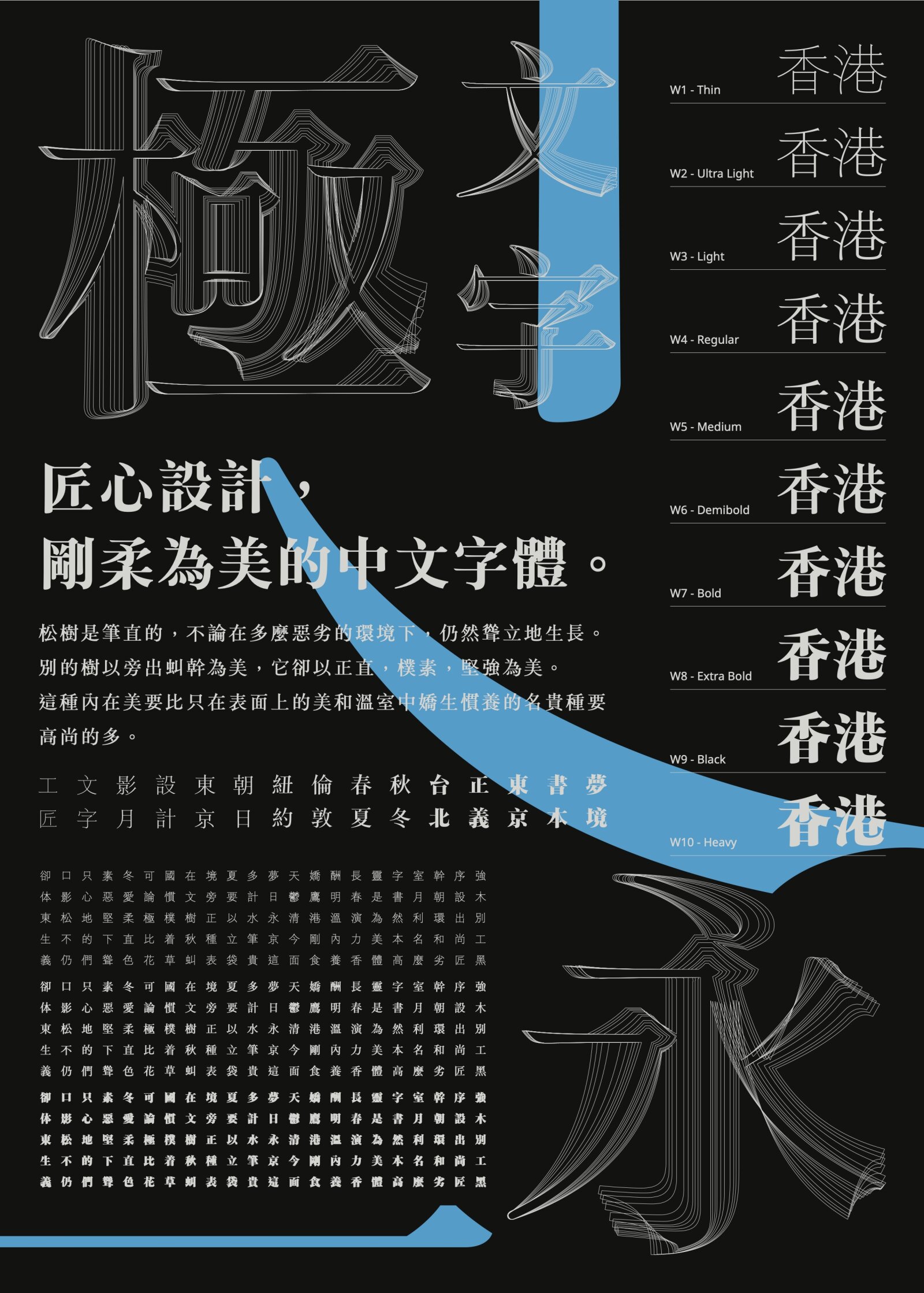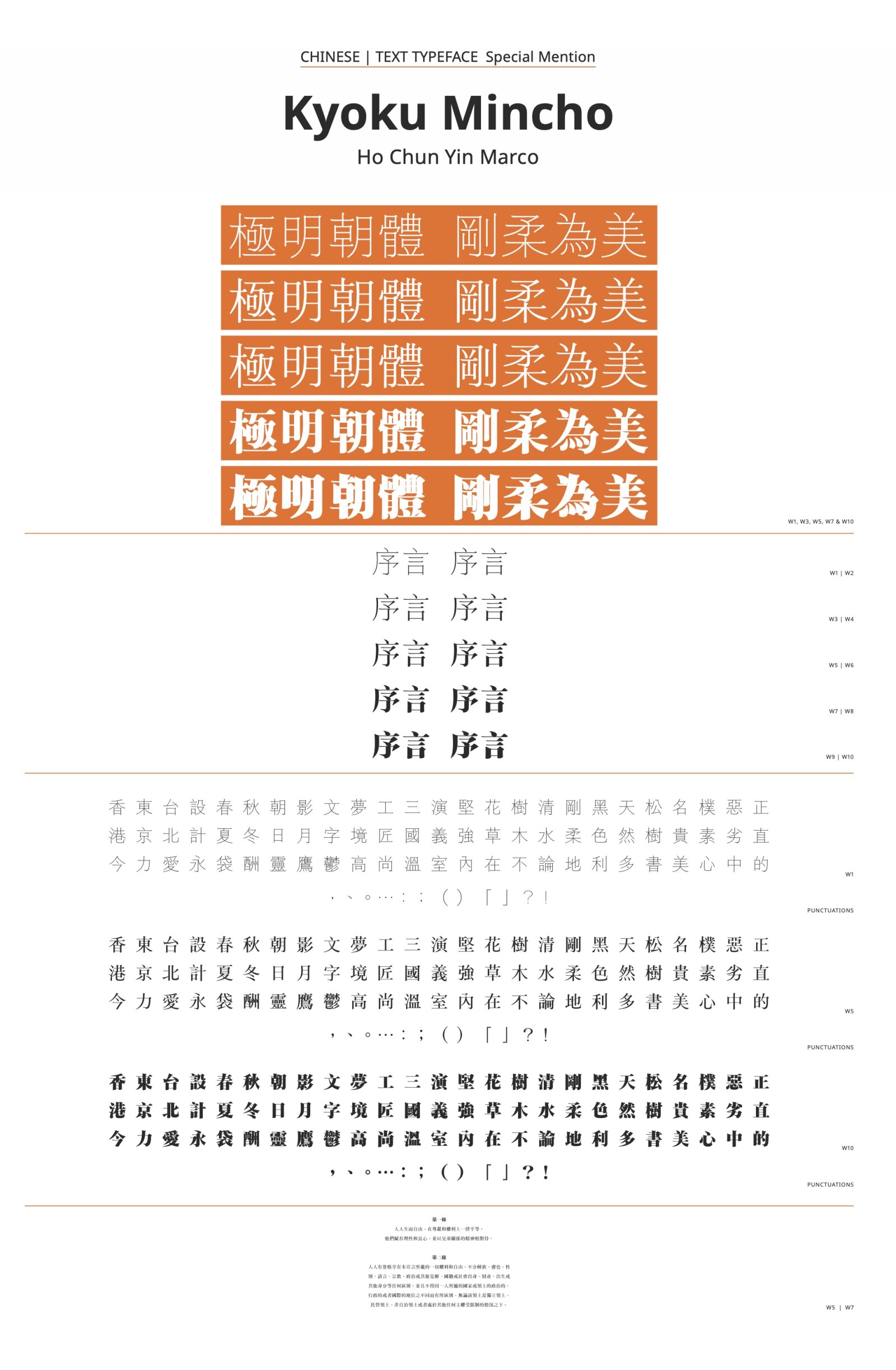
Kyoku Mincho
by Chun Yin Ho
Chinese
The biggest challenge that the Hanzi needs to face in terms of design is the huge number of character set and the difference in the number of strokes. One that takes designers a long time to get out of a project, and the other is the typography colour and optical size of Hanzi in family. hollow-Negro is a work with some early missionary font in Songti. I’m very interested in the style, but it’s bold not a good.
Since the variable font was announced, there are already more than 30 sets of Chinese variable fonts in the market but most of them are Gothic style. I was aiming to design a neutral, calm and plain Mincho typeface at the beginning. During the process of design, I realised there may be slight changes in feeling while adjusting the strokes. The typeface is designed with considerations of the feeling between soft and gentle to hard and strong by changing weight. The title of the typeface in Chinese means extremes, aiming to bring out two extreme feelings within one typeface.